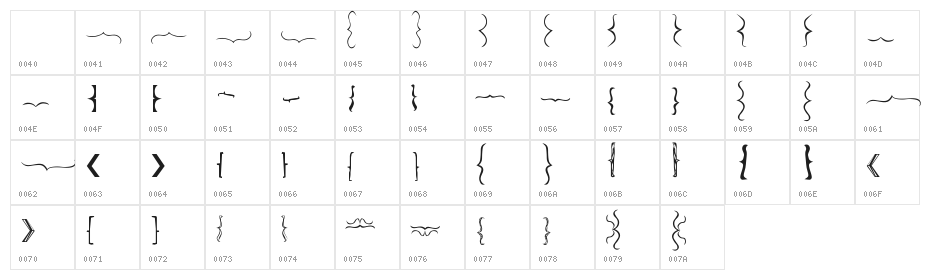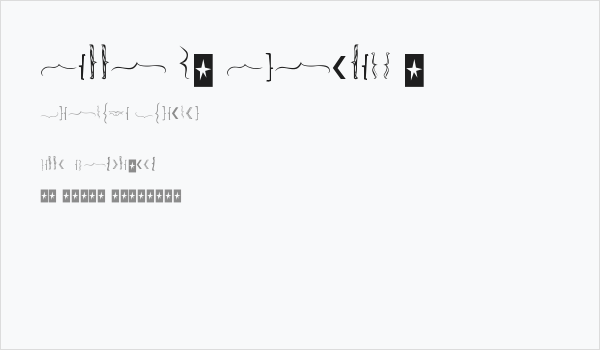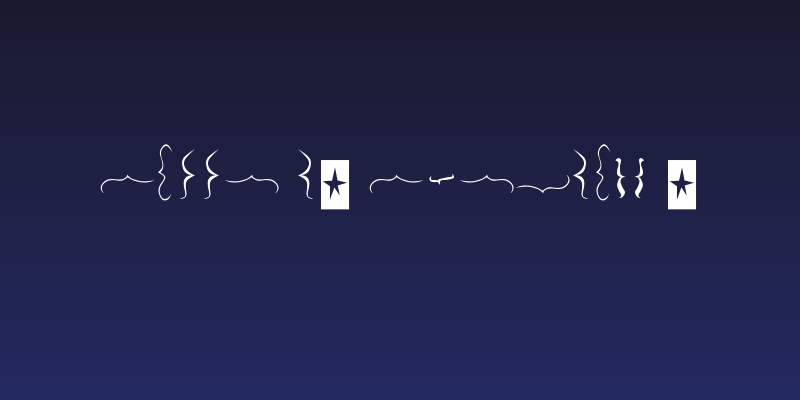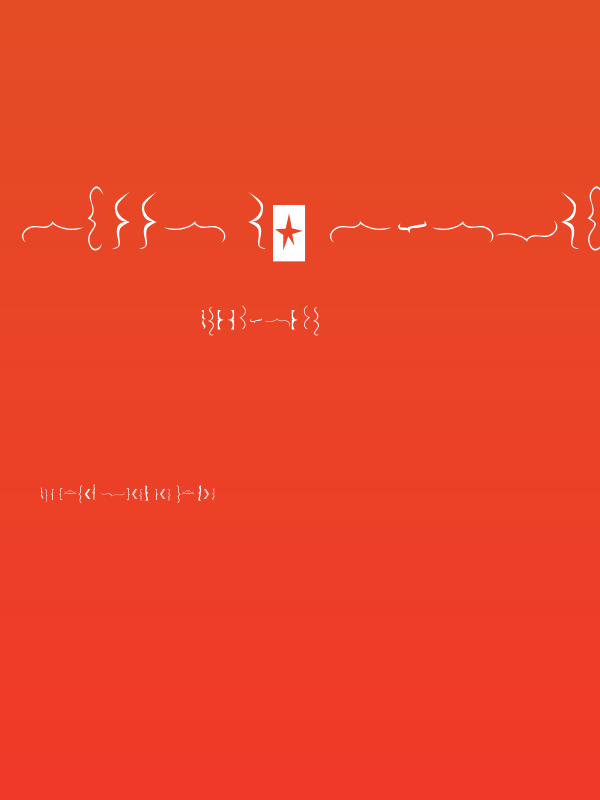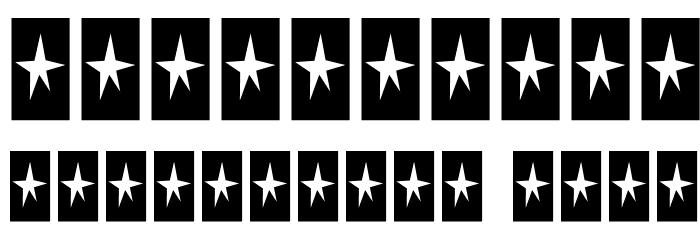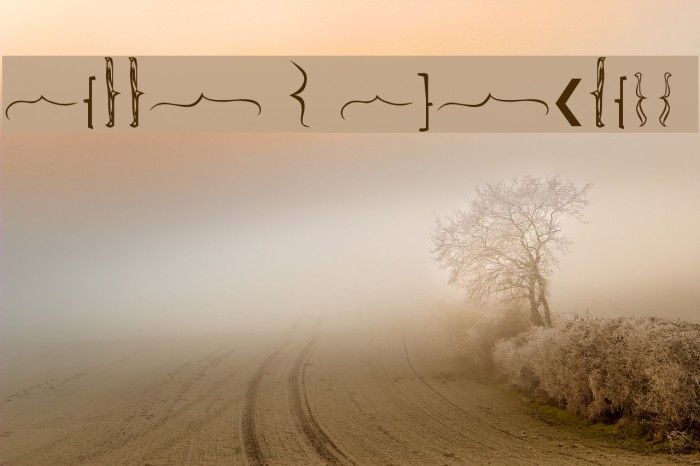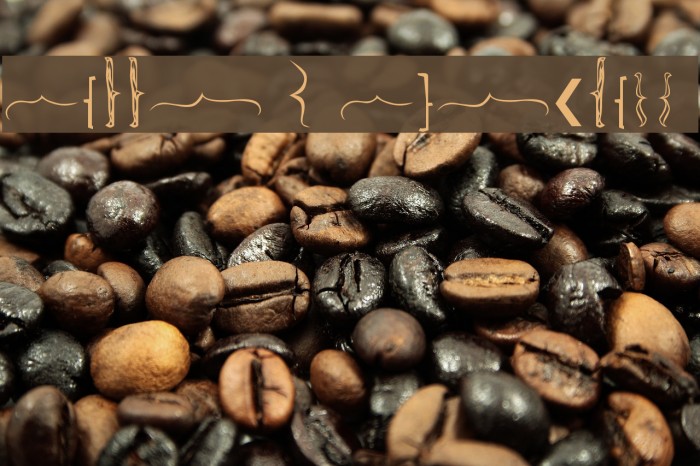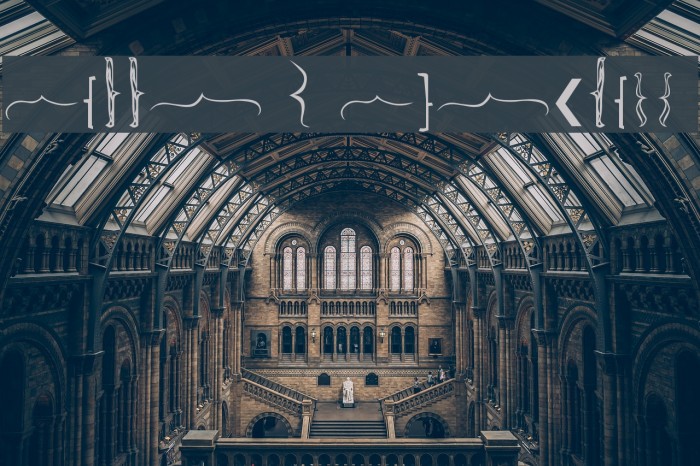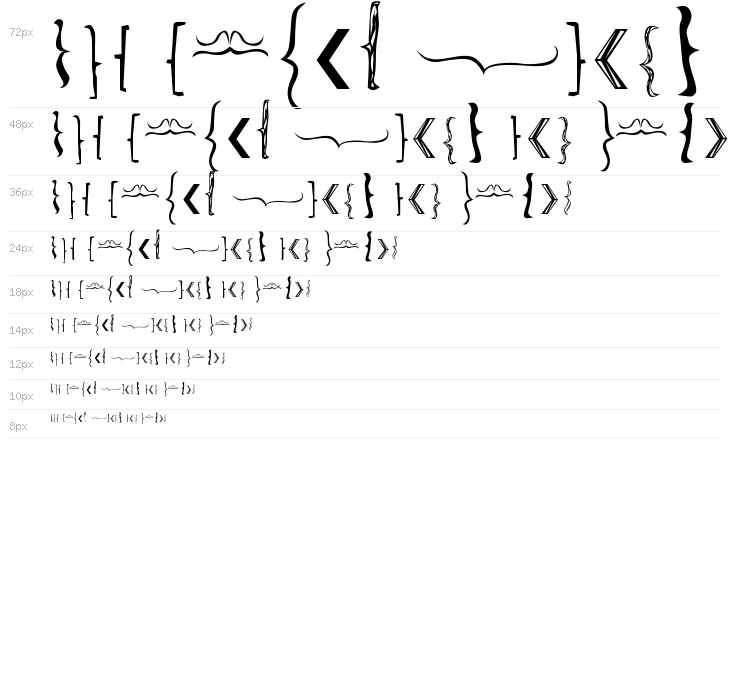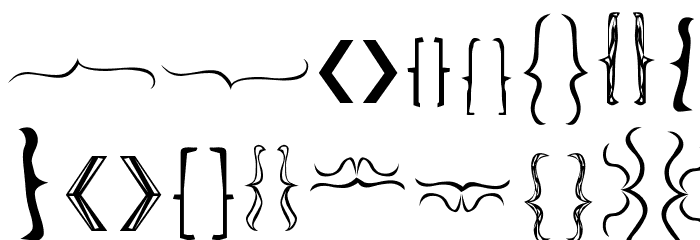
Bella K. Brackets - Font
Bella K. Brackets - Description
A decorative collection of various bracket and brace glyphs, including curly, square, and angular styles, with some featuring ornate, bold, or hand-drawn characteristics. The set also includes star symbols inside solid rectangles, offering a mix of playful and dramatic visual elements.
| Overall Style | Decorative, Playful, Ornamental |
| Use Case | Accents, Borders, Frames, Visual emphasis, Thematic graphics |
| Proposed Projects | Invitations, posters, scrapbooking, digital art, educational materials, or any project needing ornamental brackets or accent symbols. |